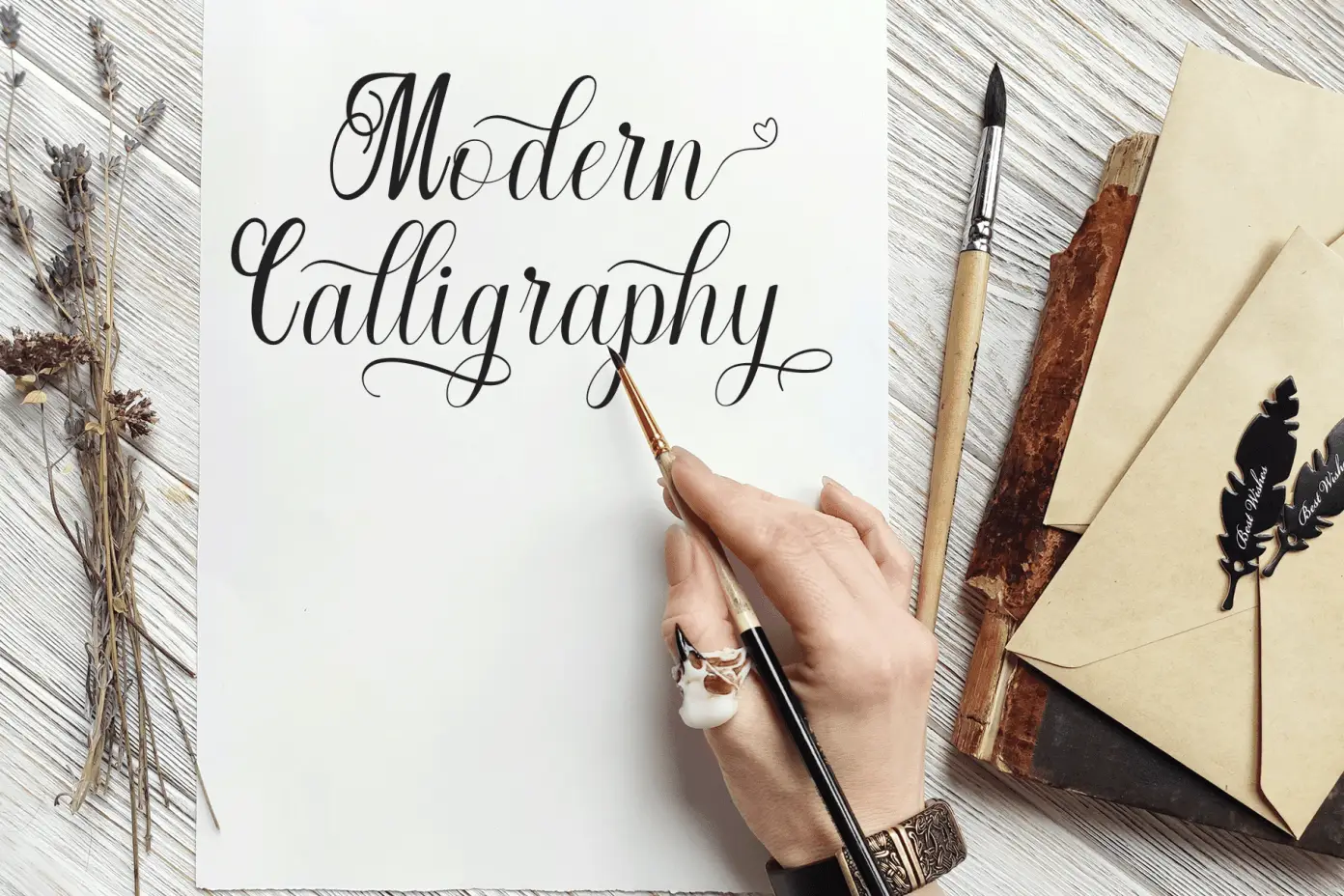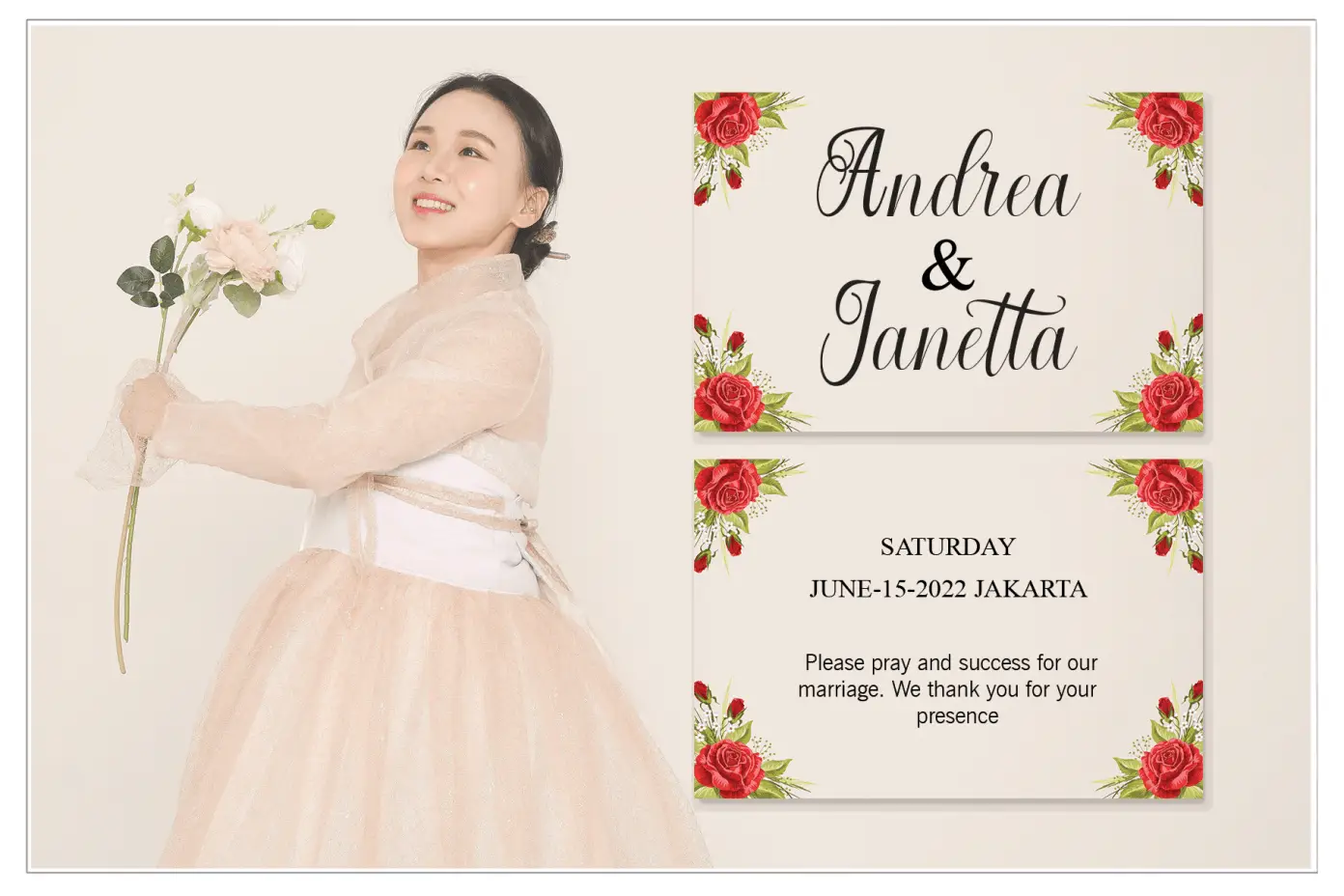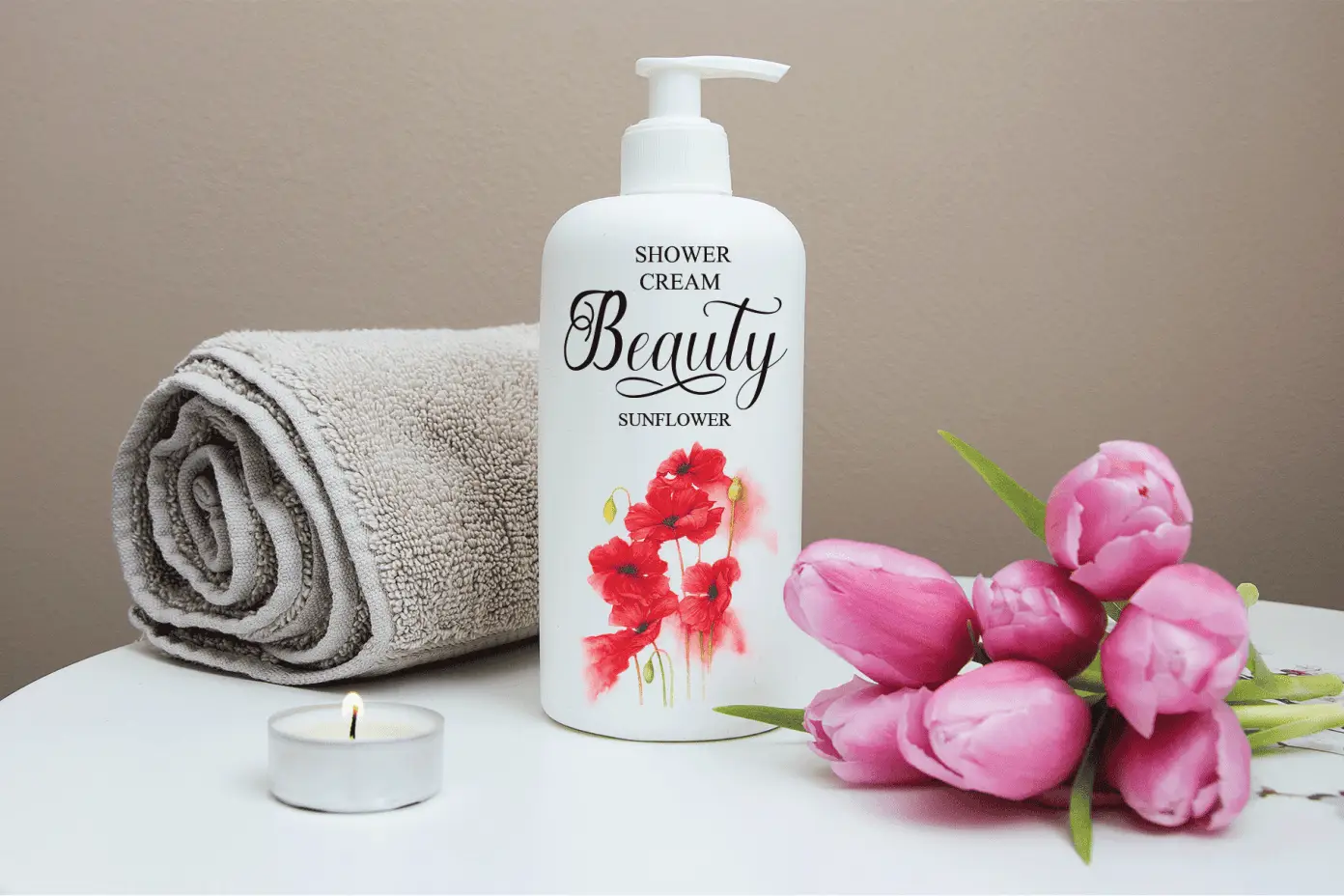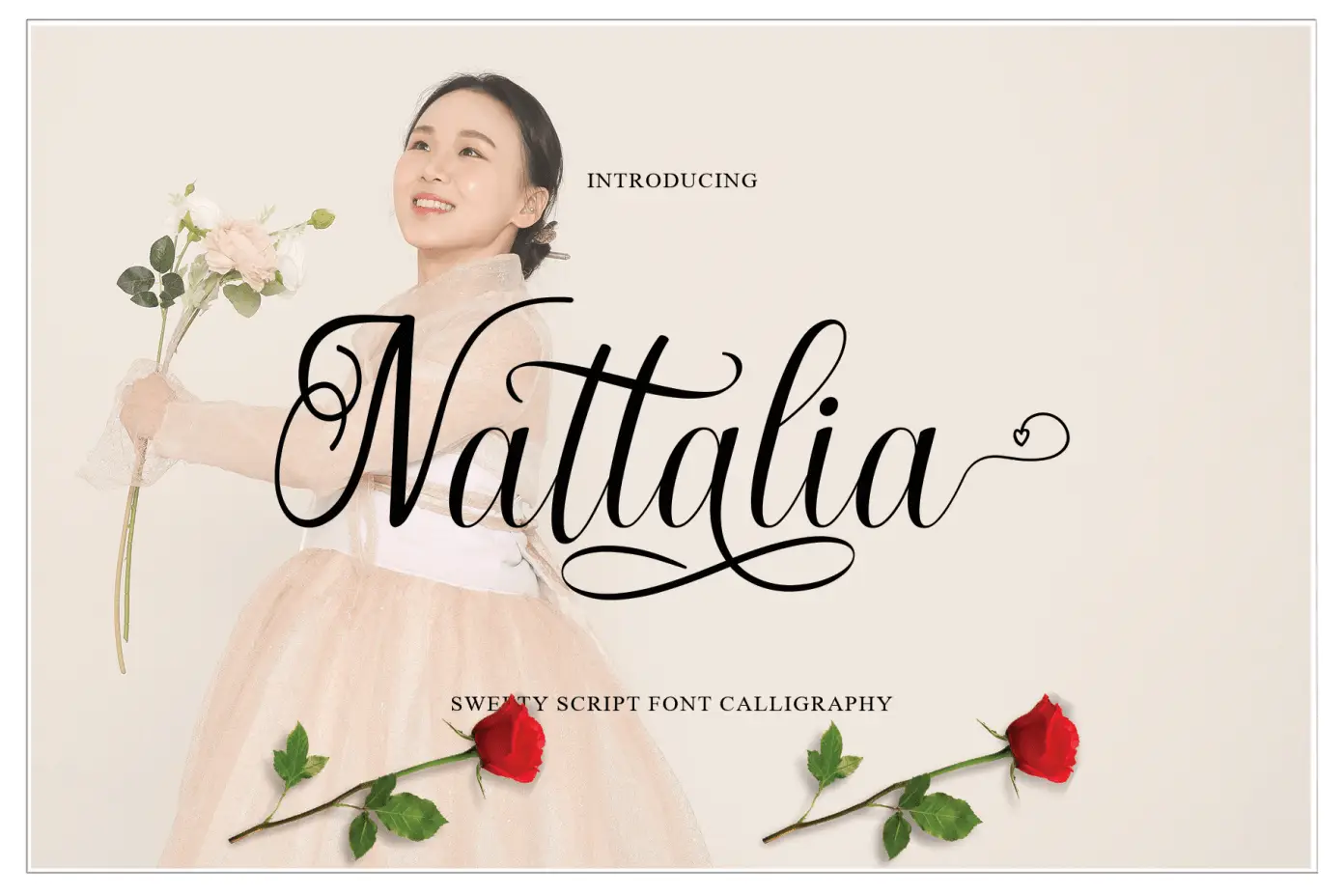
Nattalia Script Font is a beautifully crafted typeface that embodies elegance and sophistication. With its flowing curves and stylish design, this font is perfect for a variety of creative projects.
- Stylish script design
- Uppercase and lowercase letters
- Numerals and punctuation included
- Styles: Regular, Bold
This font is ideal for branding, logos, invitations, and any project that requires a touch of elegance. Its unique style makes it suitable for both print and digital applications.